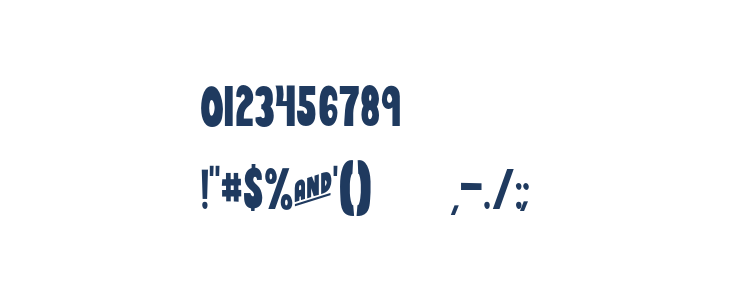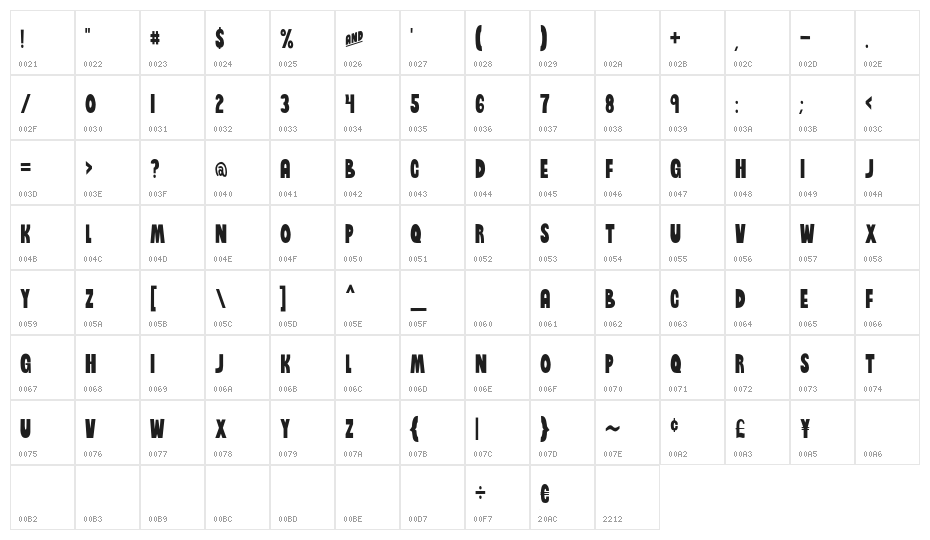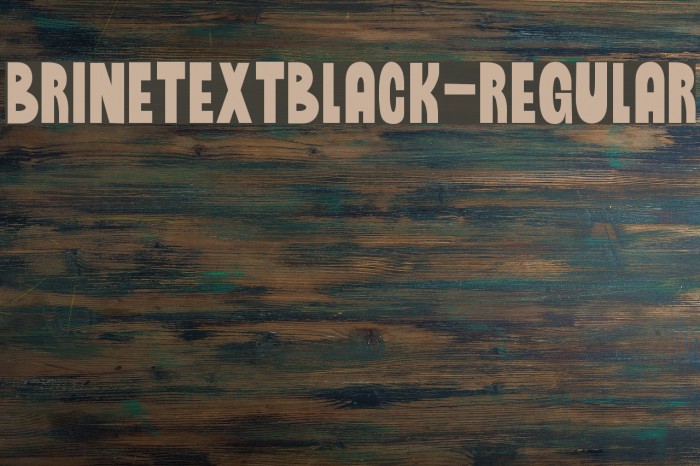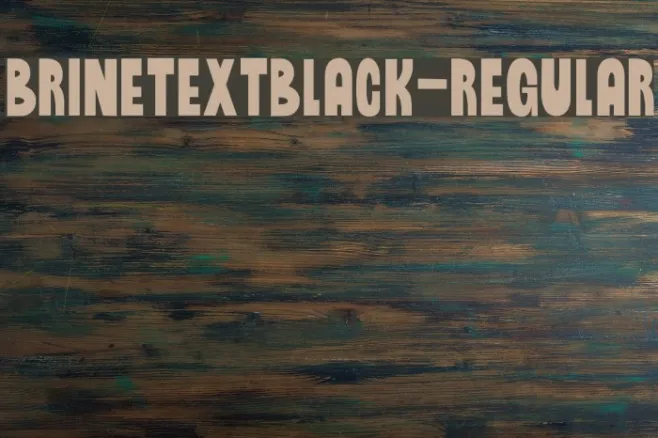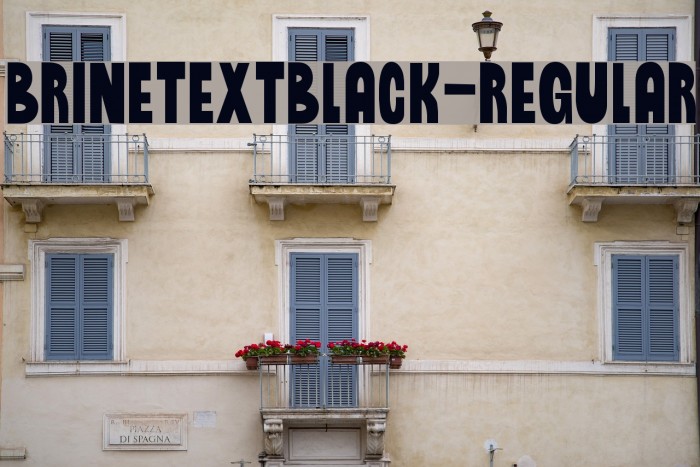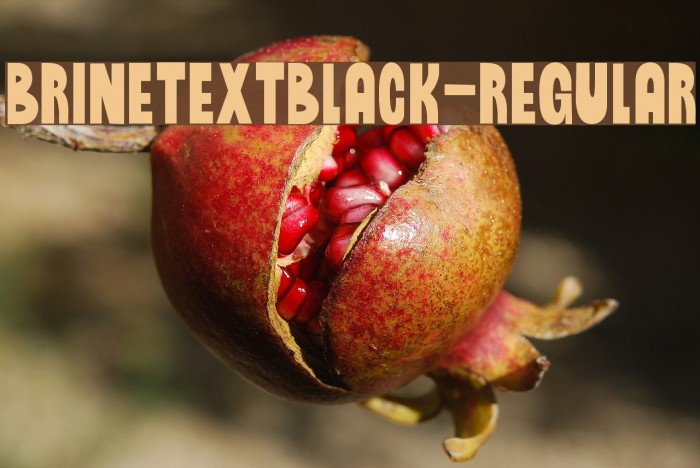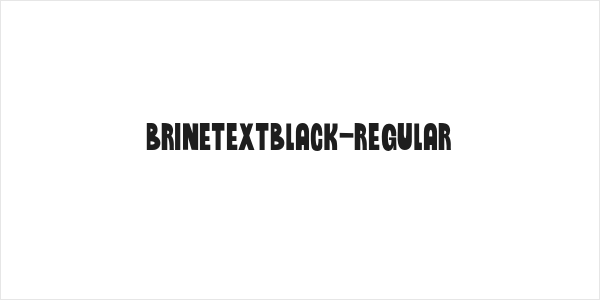
BrinetextBlack-Regular Font
BrinetextBlack-Regular Description
This font features bold, thick strokes with a strong presence, making it ideal for impactful designs. The characters are uniformly wide, giving a sense of stability and strength. The uppercase letters are particularly prominent, with a slight curvature that adds a touch of softness to the otherwise robust design. The numbers and special characters maintain the same boldness, ensuring consistency across all elements. This typeface is perfect for projects that require a commanding visual element, such as posters, headlines, and branding materials.
| Proposed Projects | Ideal for posters, headlines, branding, and any design requiring a strong visual impact. |